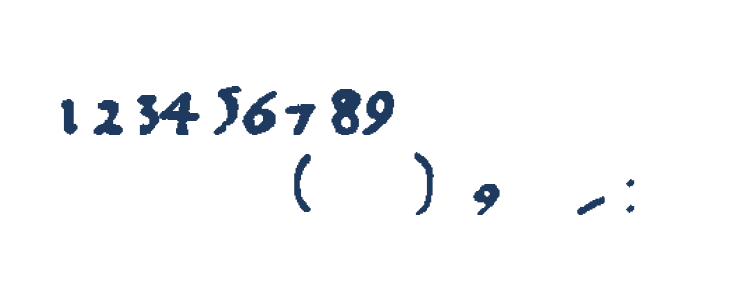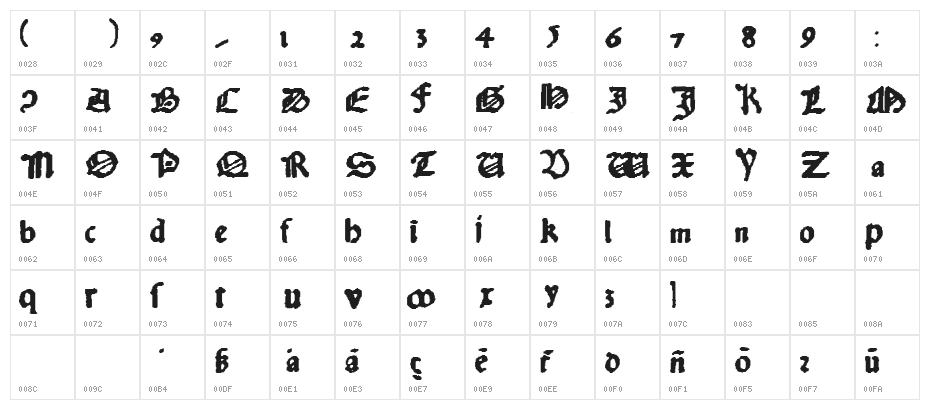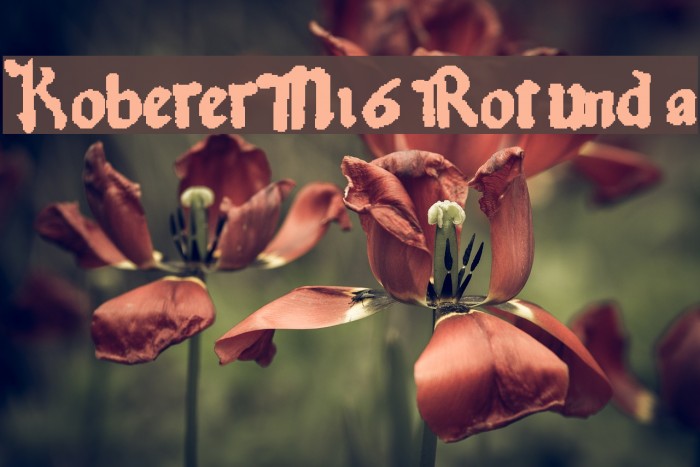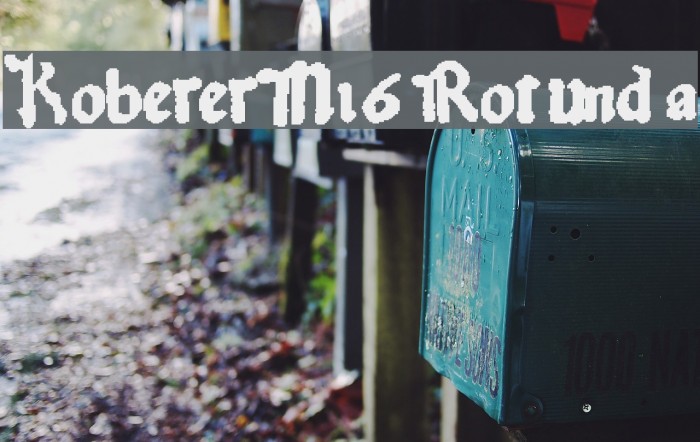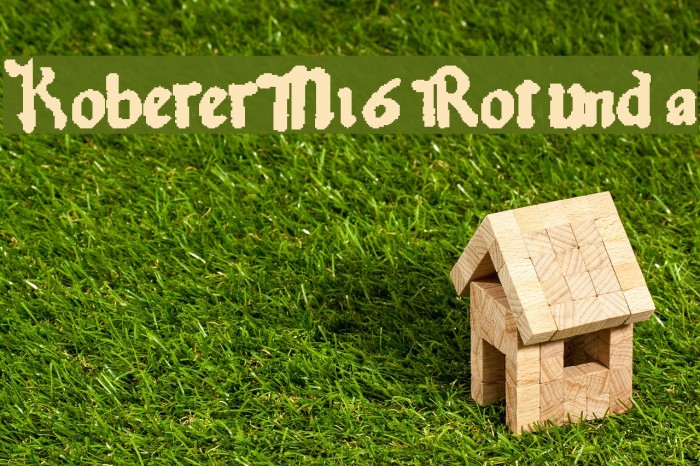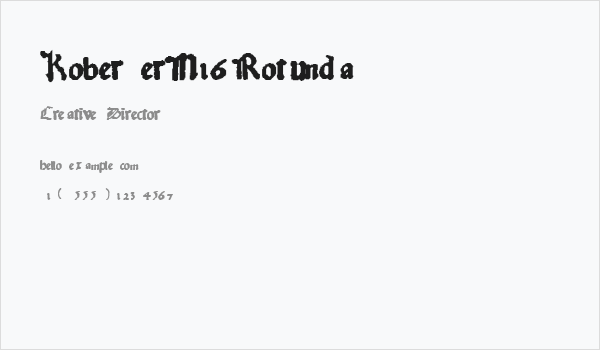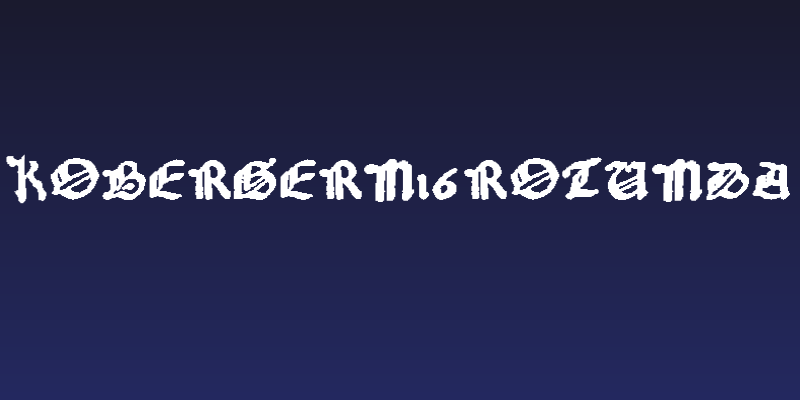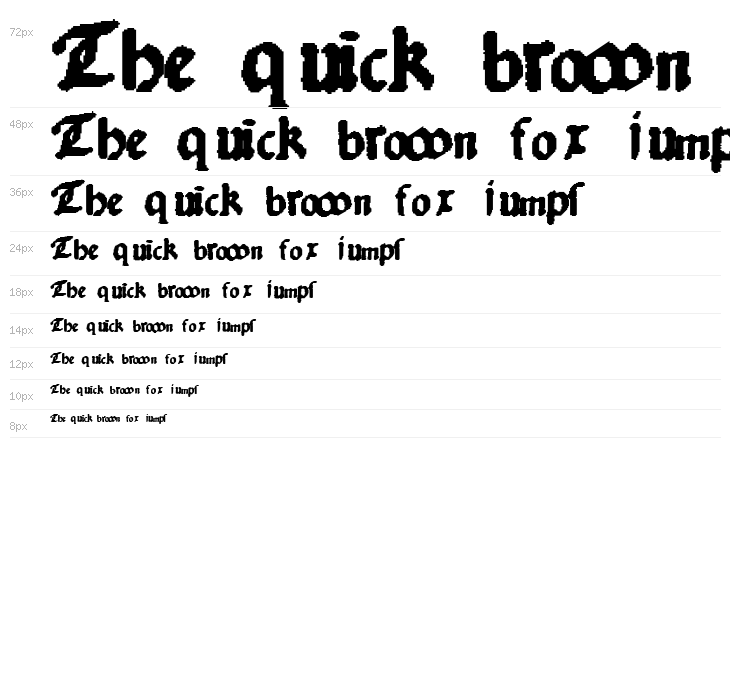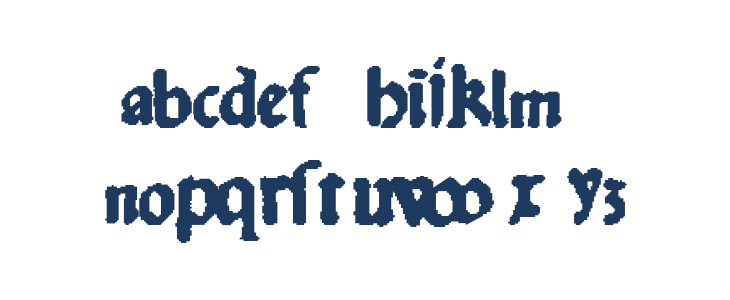
KobergerN16Rotunda Font
KobergerN16Rotunda Description
This font features a traditional blackletter style, reminiscent of medieval script. The uppercase letters are ornate with sharp, angular lines and intricate detailing, giving them a historic and formal appearance. The lowercase letters maintain a similar aesthetic with bold strokes and distinct shapes, ensuring readability while preserving the decorative style. The numerals are consistent with the overall design, featuring a bold and slightly condensed form. Special characters are included, matching the elaborate and classic look of the alphabet. This font is ideal for projects that require a touch of antiquity and elegance, such as historical documents, certificates, or themed event invitations.
| Proposed Projects | Ideal for historical documents, certificates, themed event invitations, or any project requiring a medieval aesthetic. |